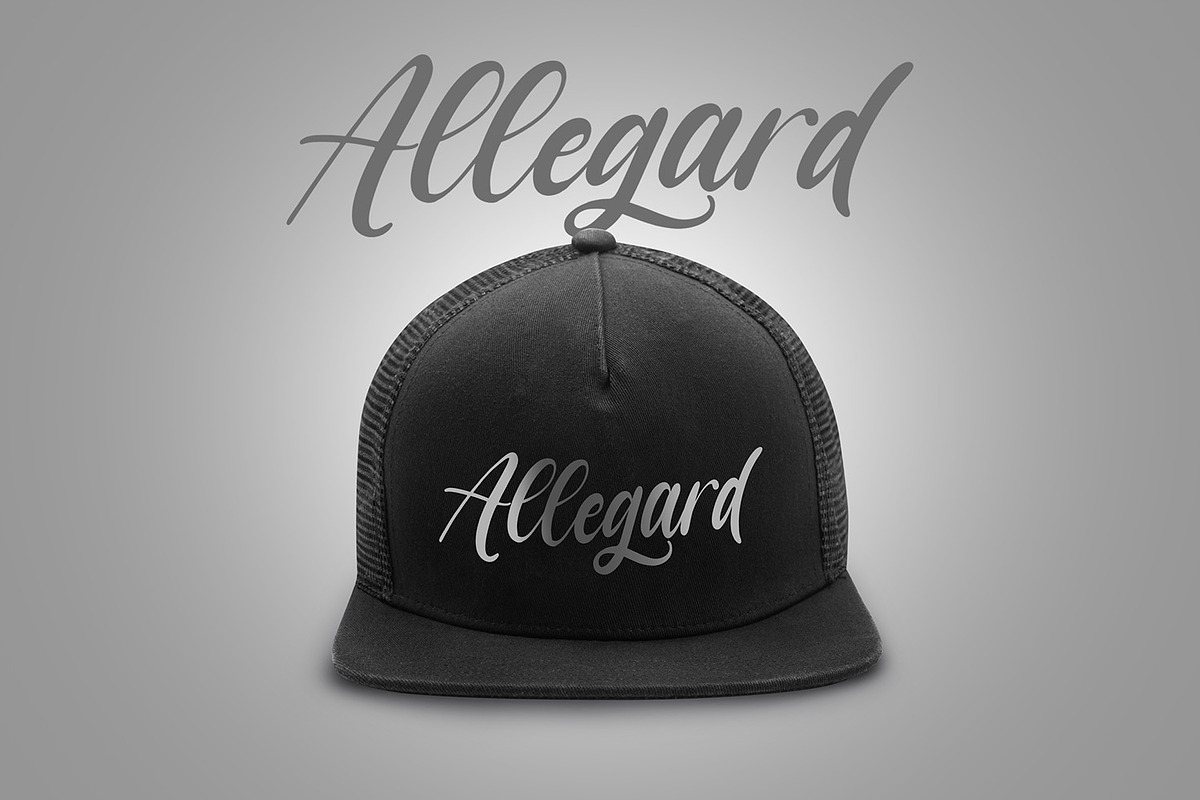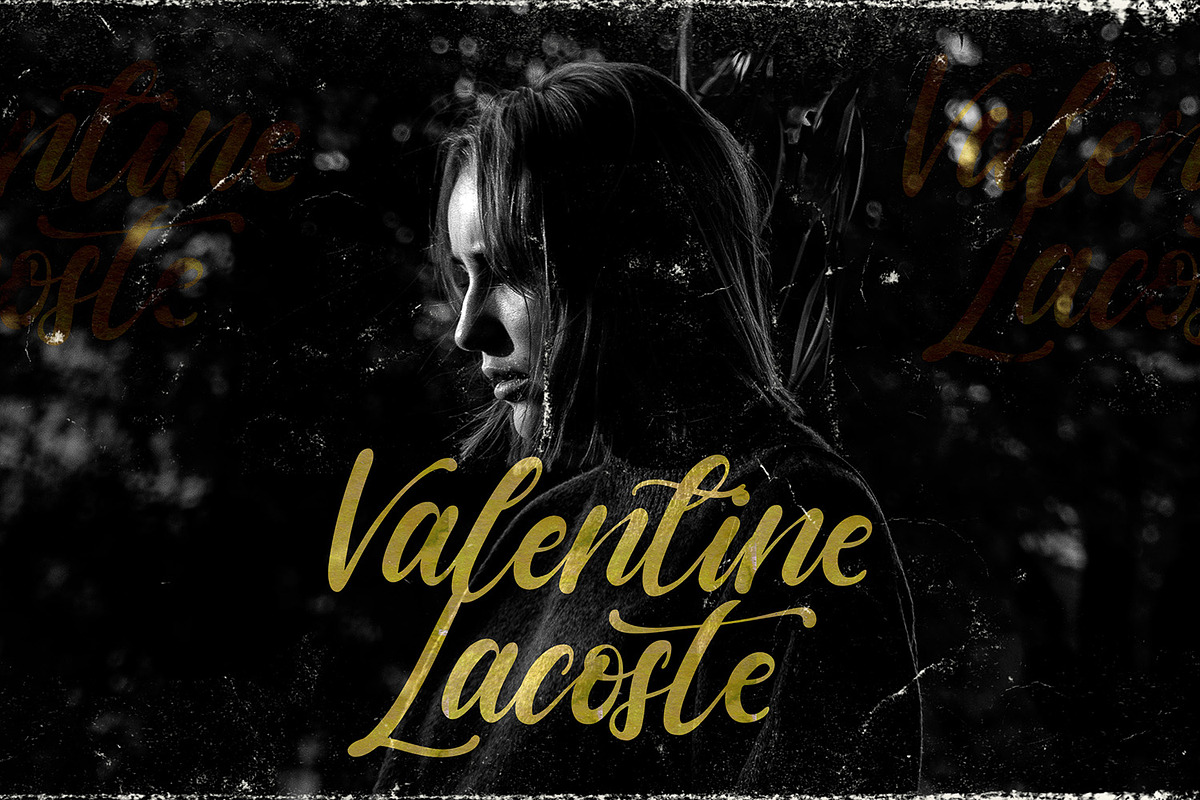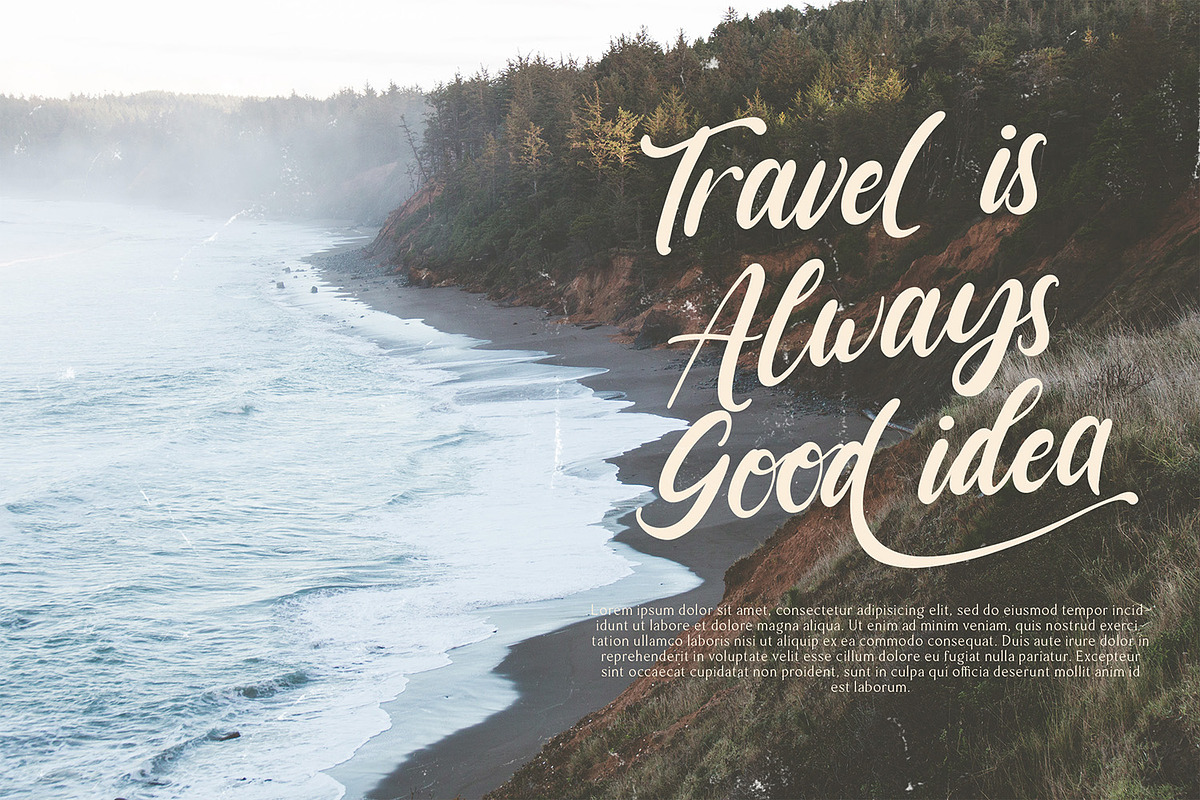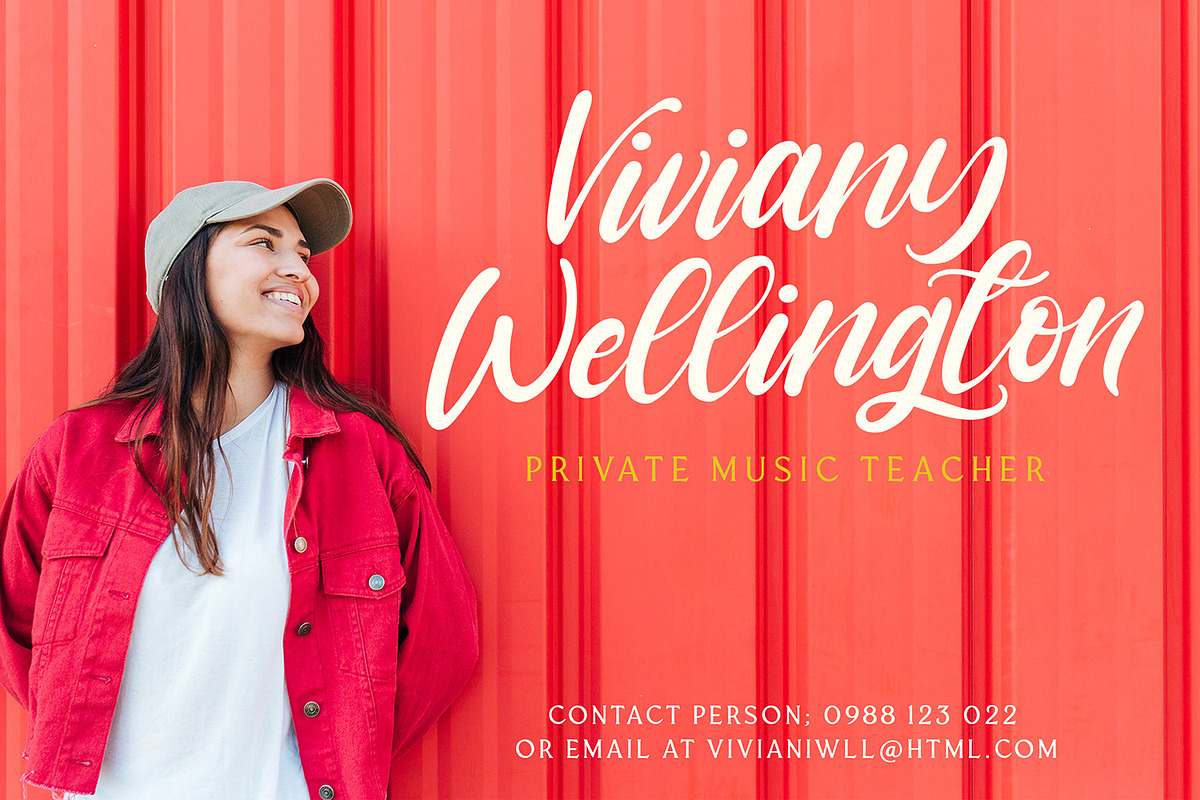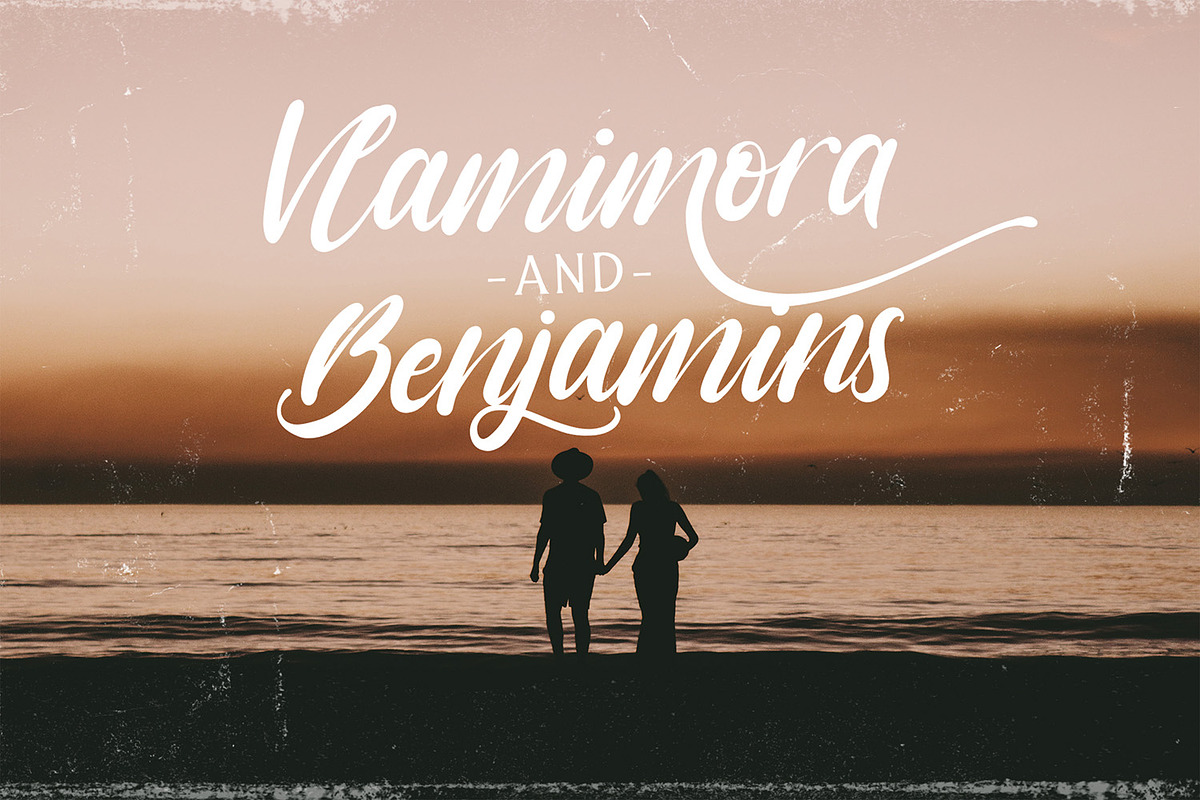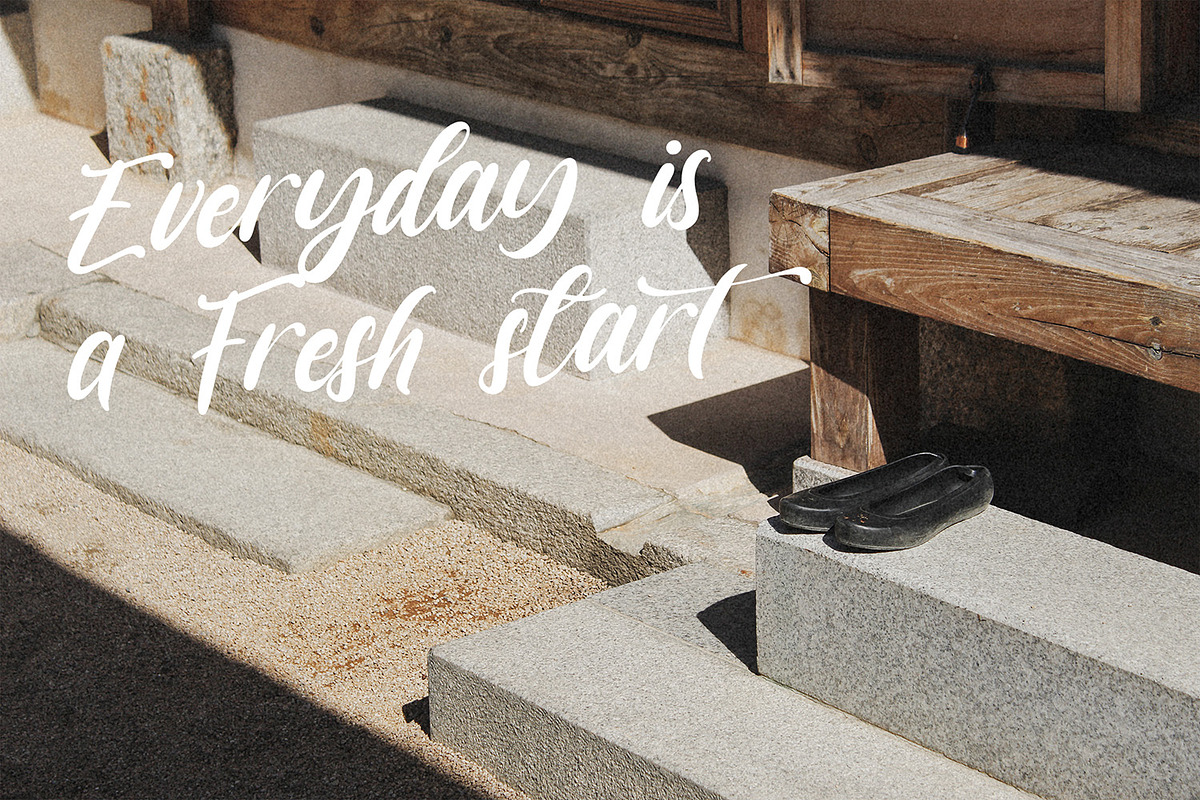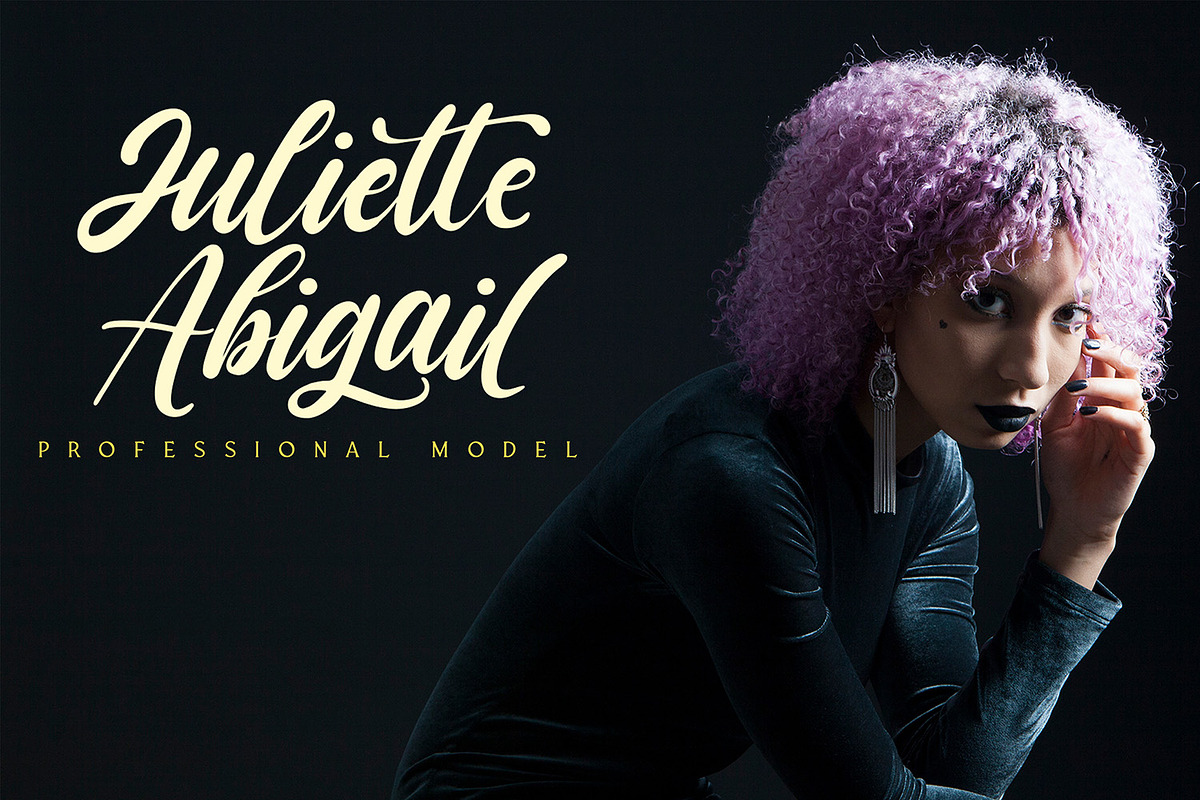
Vagnotie - Modern Brush Font
Introducing Vagnotie - Modern Brush Font
Vagnotie is a Script Font with Modern Brush Style. The Vagnotie font made with digital brush pen strokes that making this font look authentic. This font is perfect for fashion brand, wedding invitation, business card, logo brand, signature, and then calligraphy.
- This Font contains Elegant, Creative, and has a Unique Concept.
Why Vagnotie - Modern Brush Font is worth a look
Vagnotie - Modern Brush Font by StringLabs fits naturally into Branding, posters, packaging, typography.